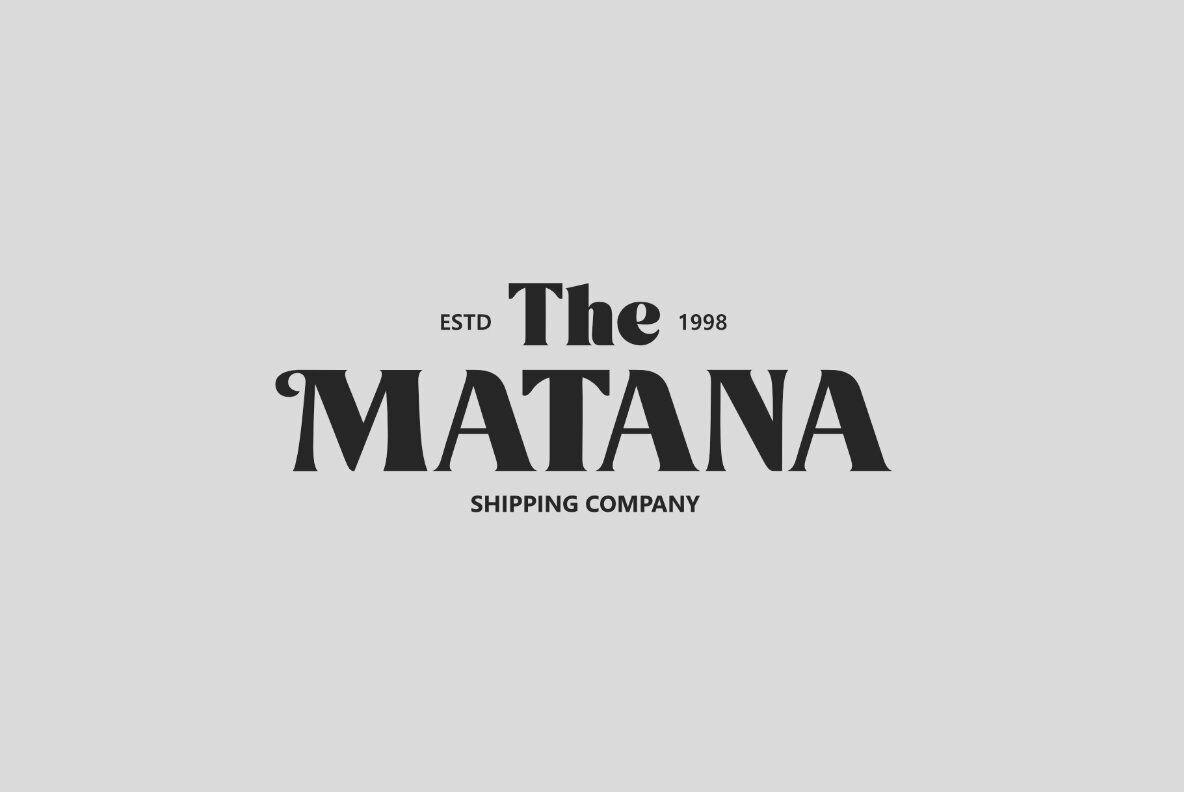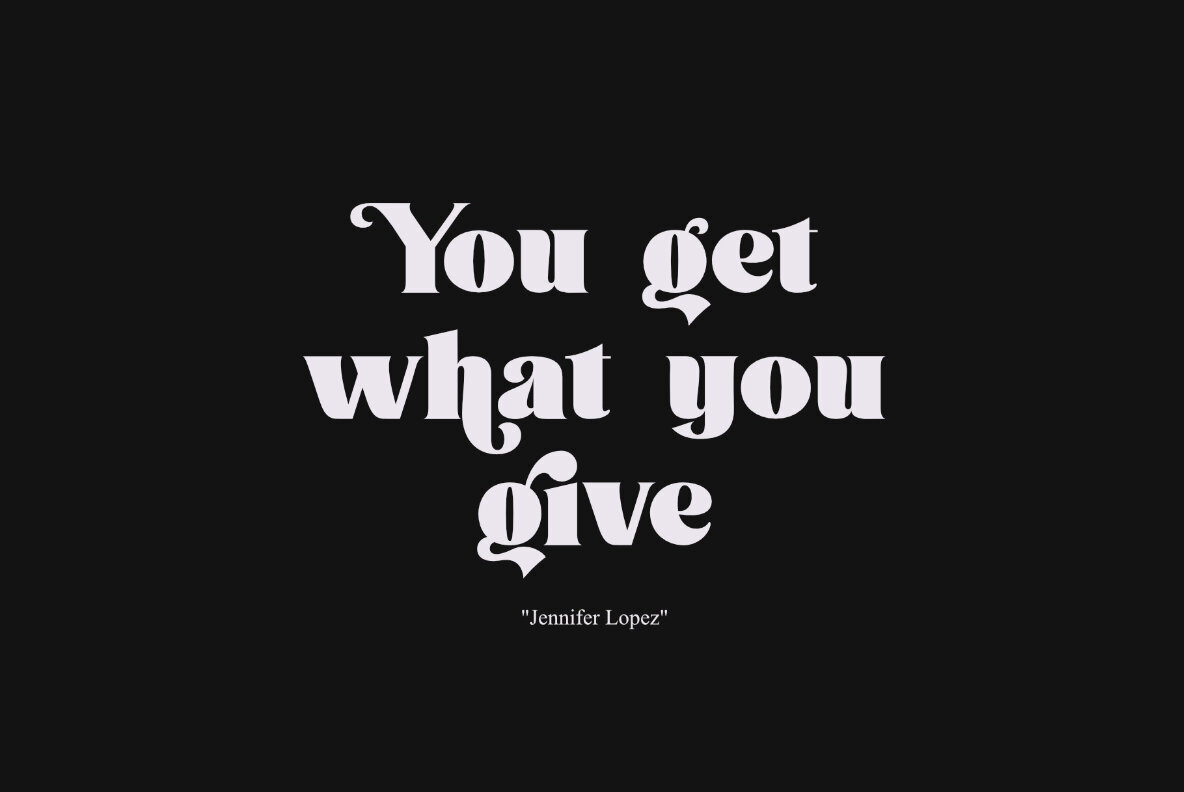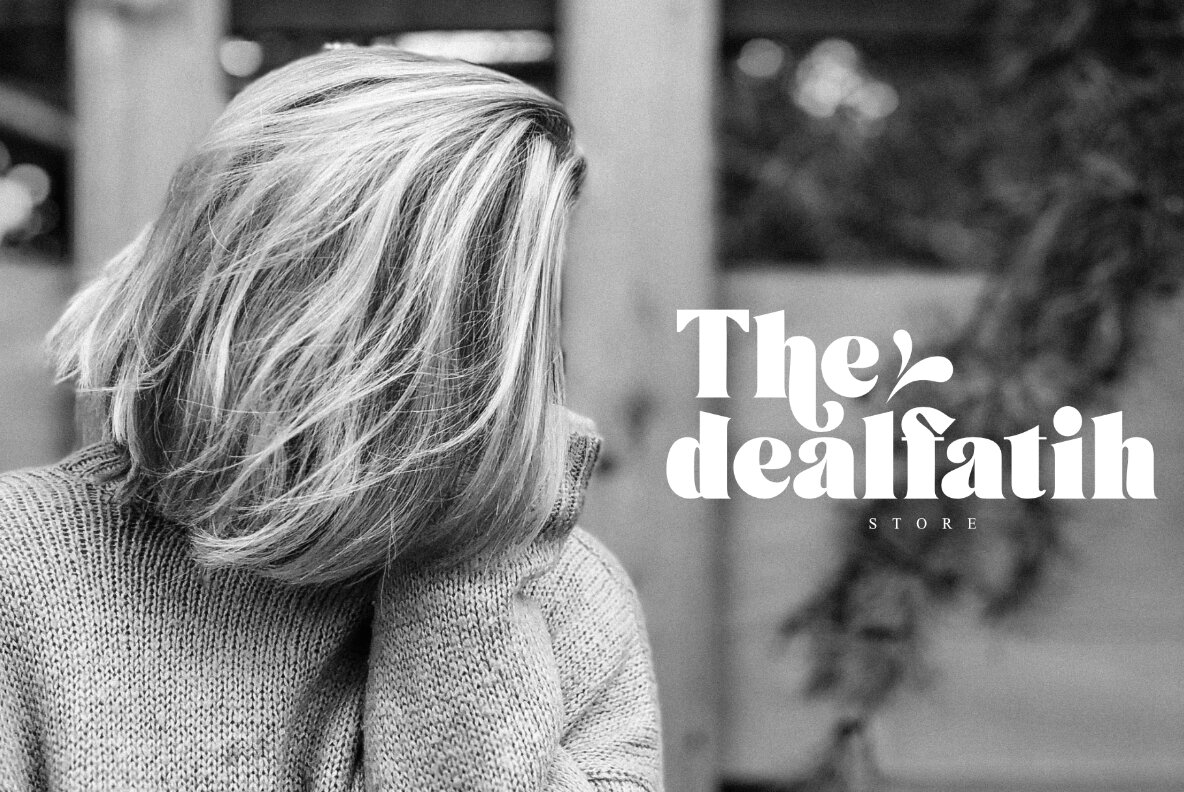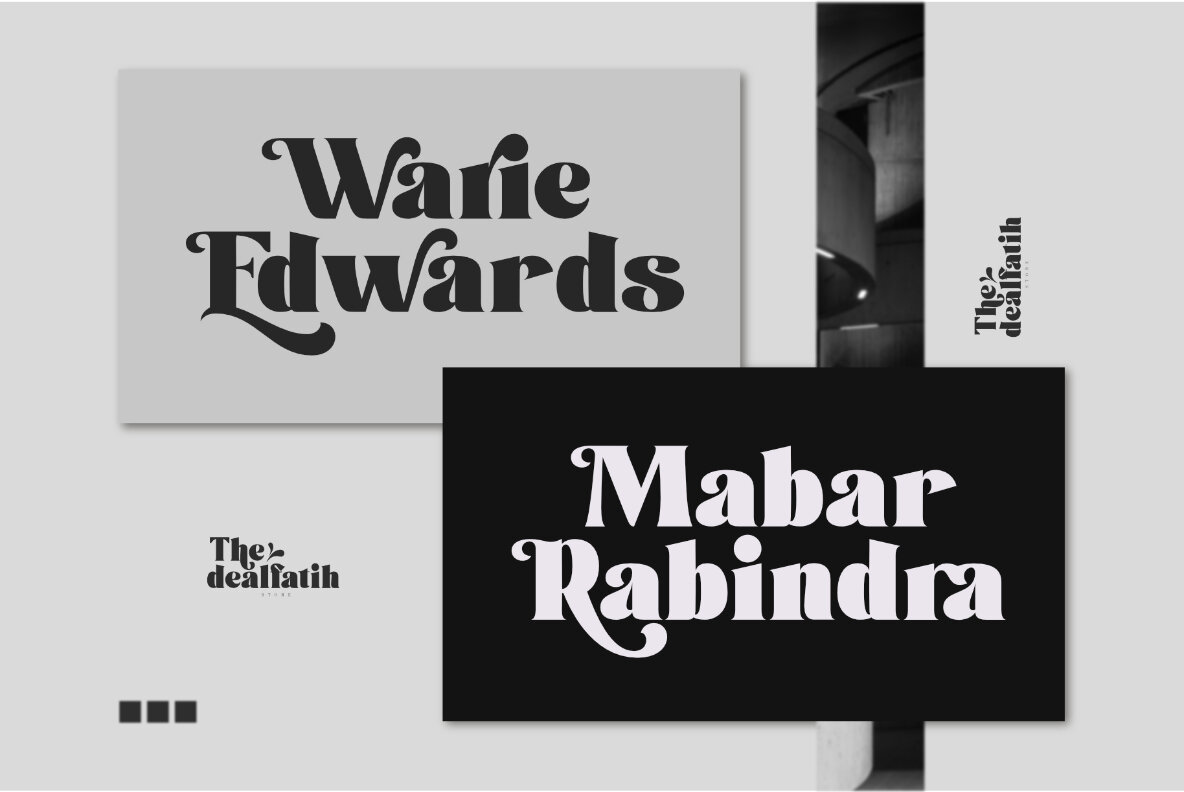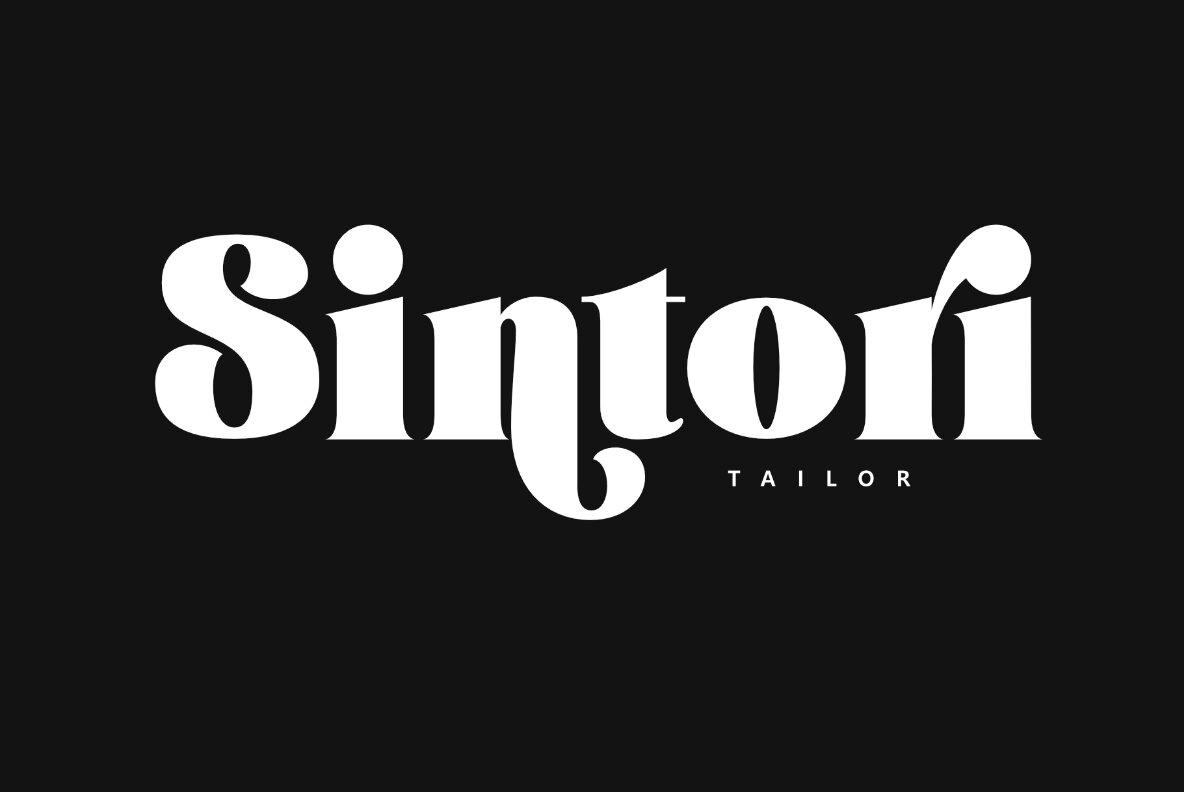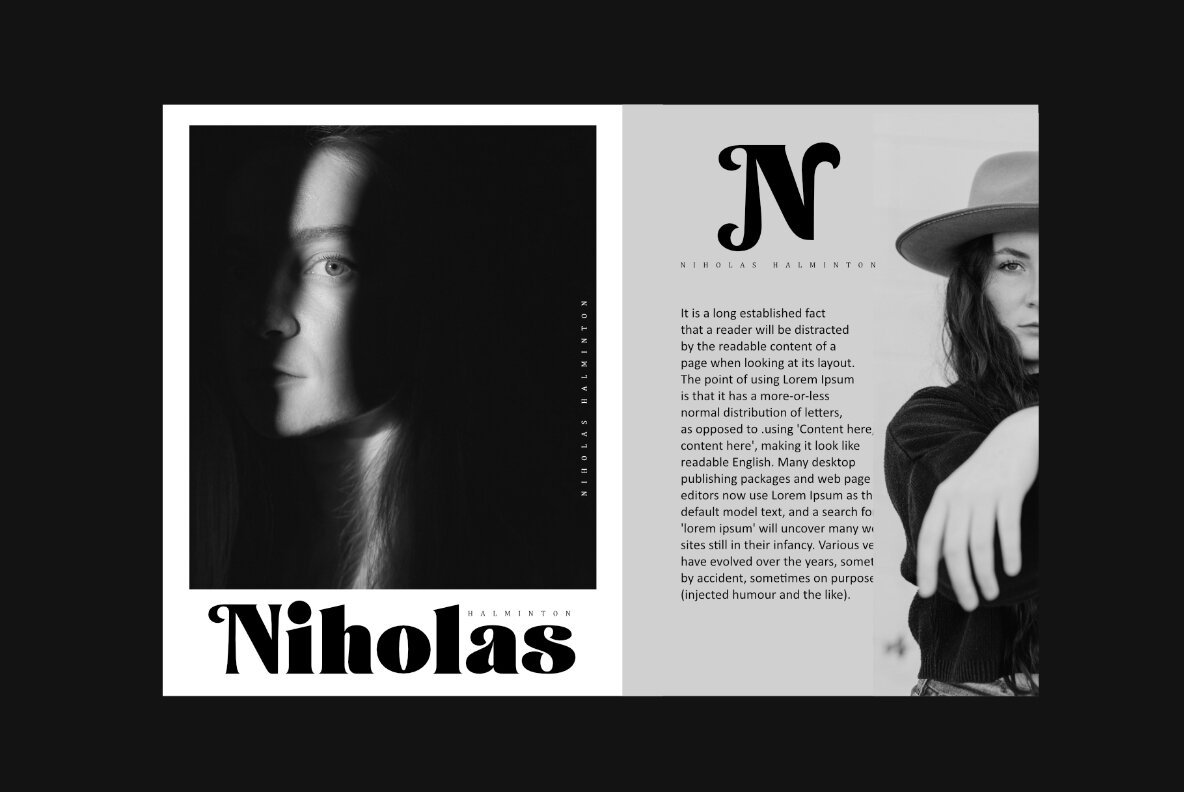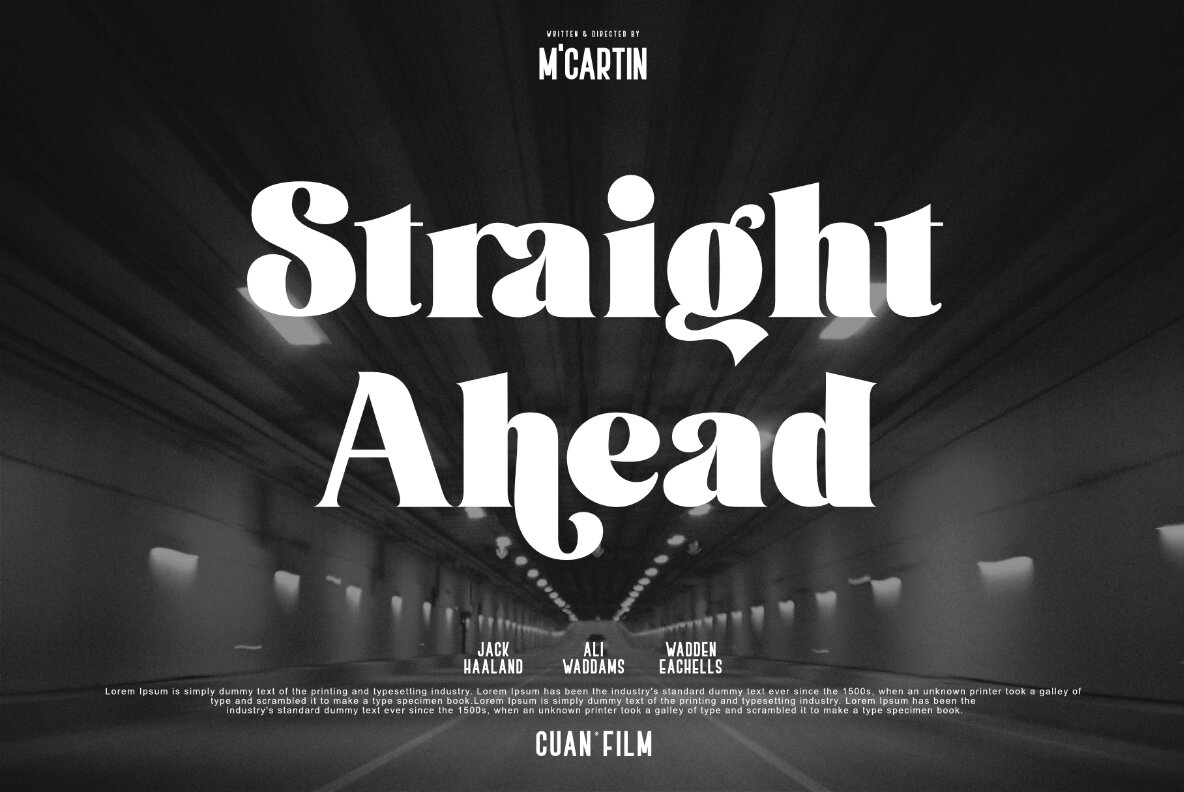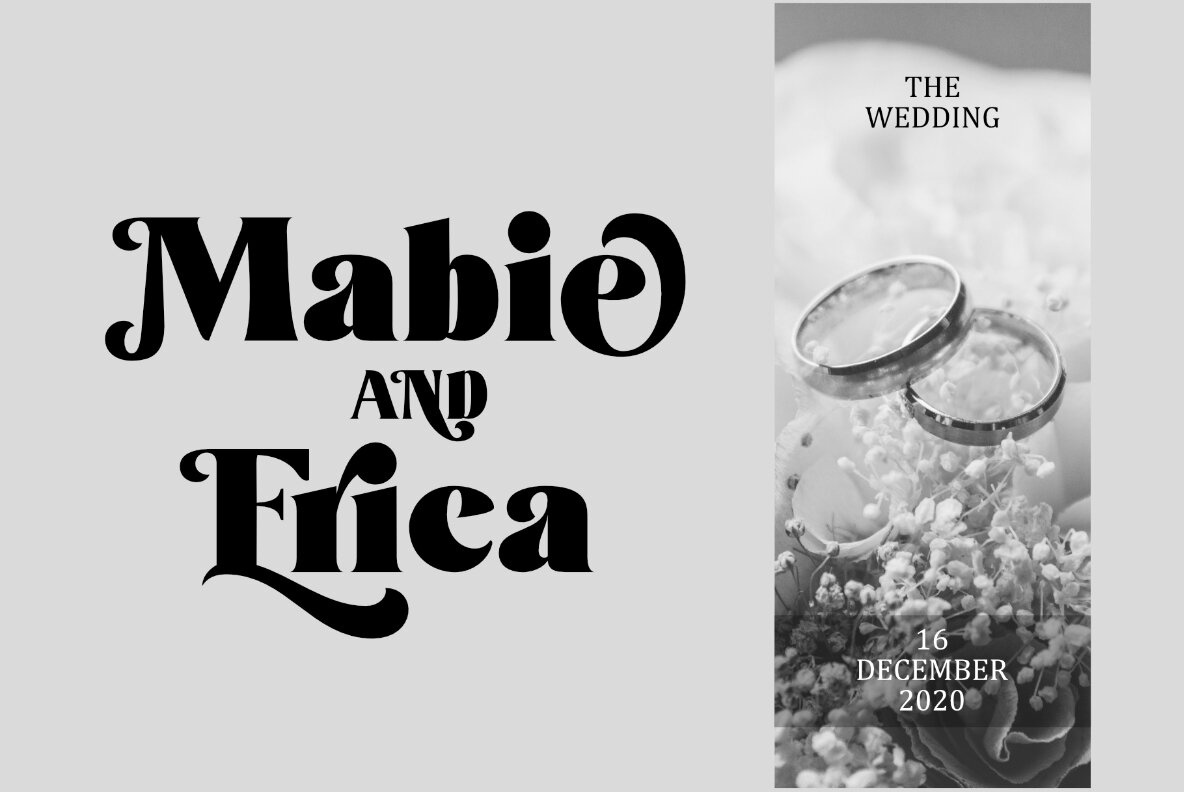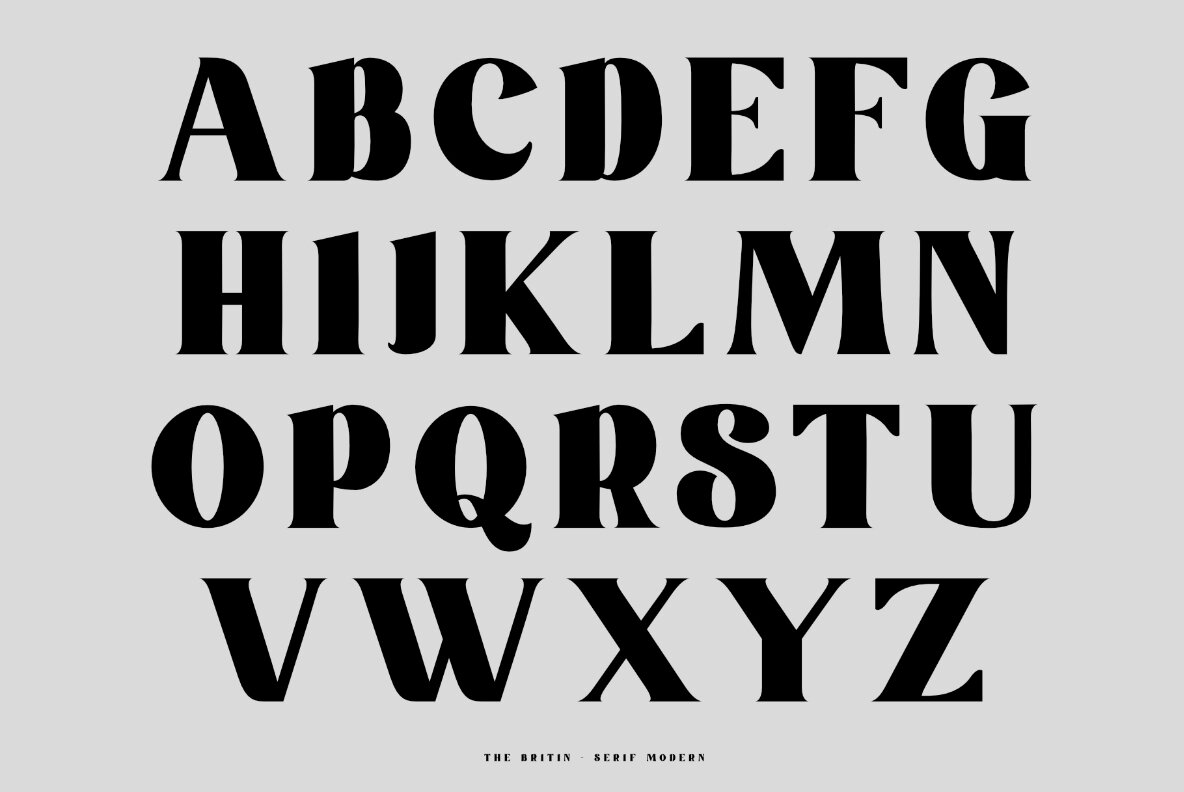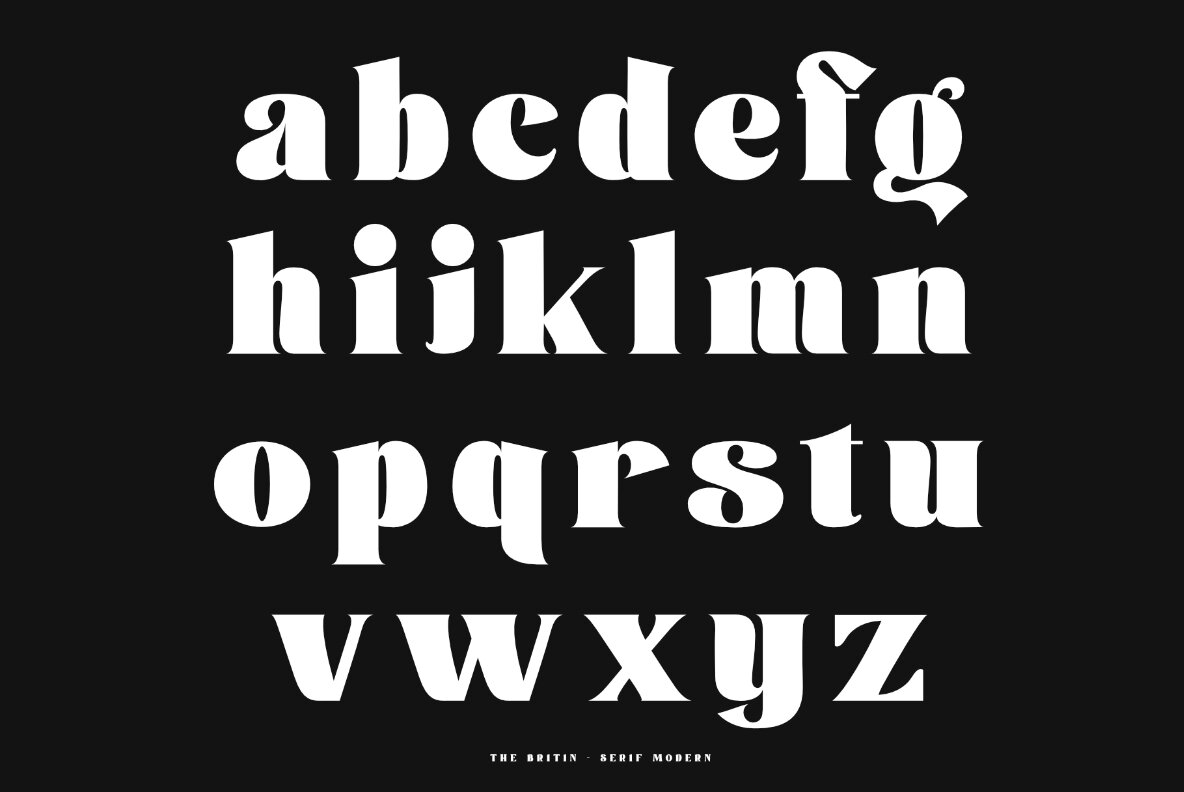
Britin Font
Britin
The Britin is a modern, masculine serif font that comes with ligatures for all your branding needs. Whether you need it to do cover designs or web designing - there's no limit on how this beautiful typeface can help!